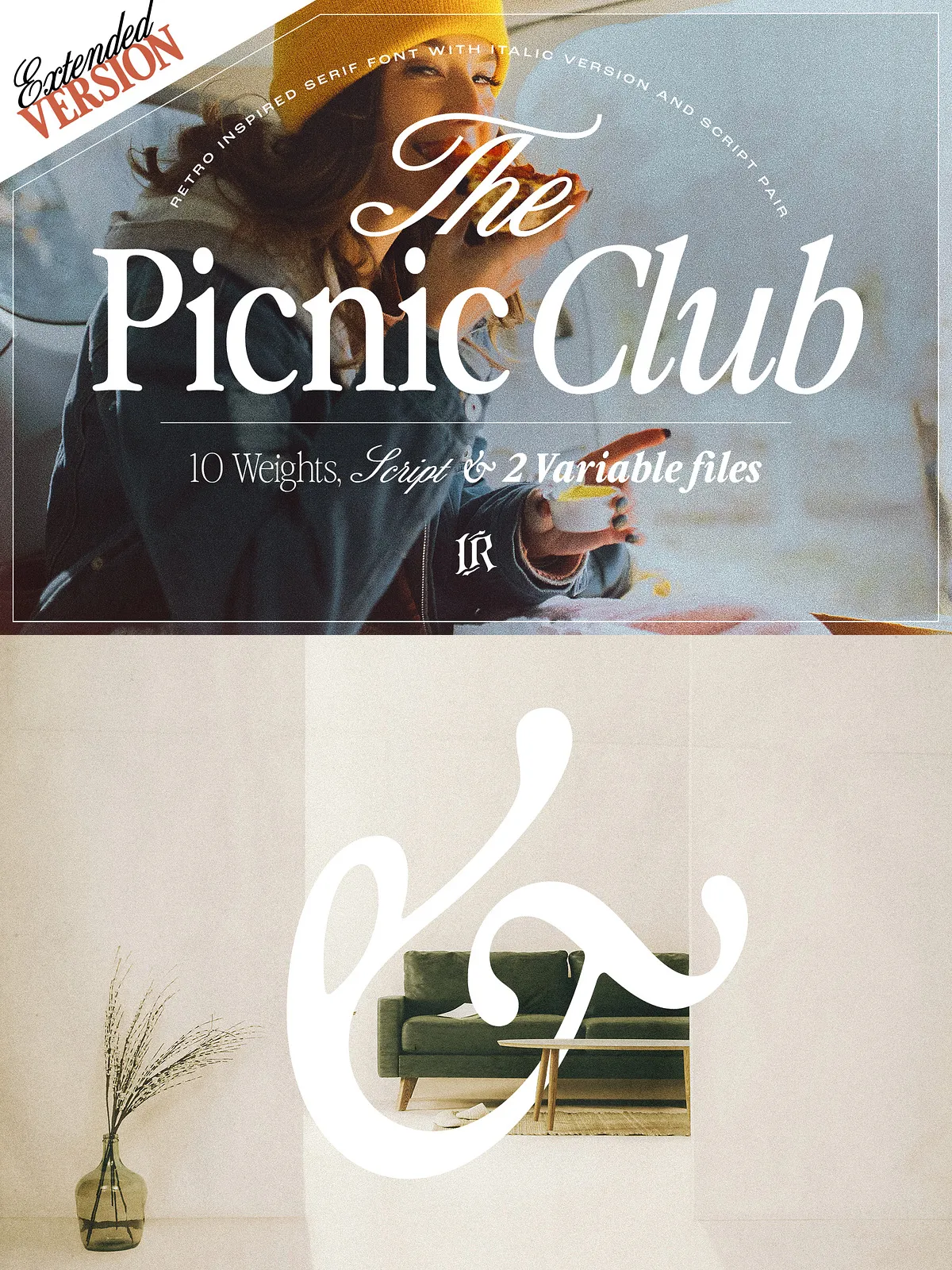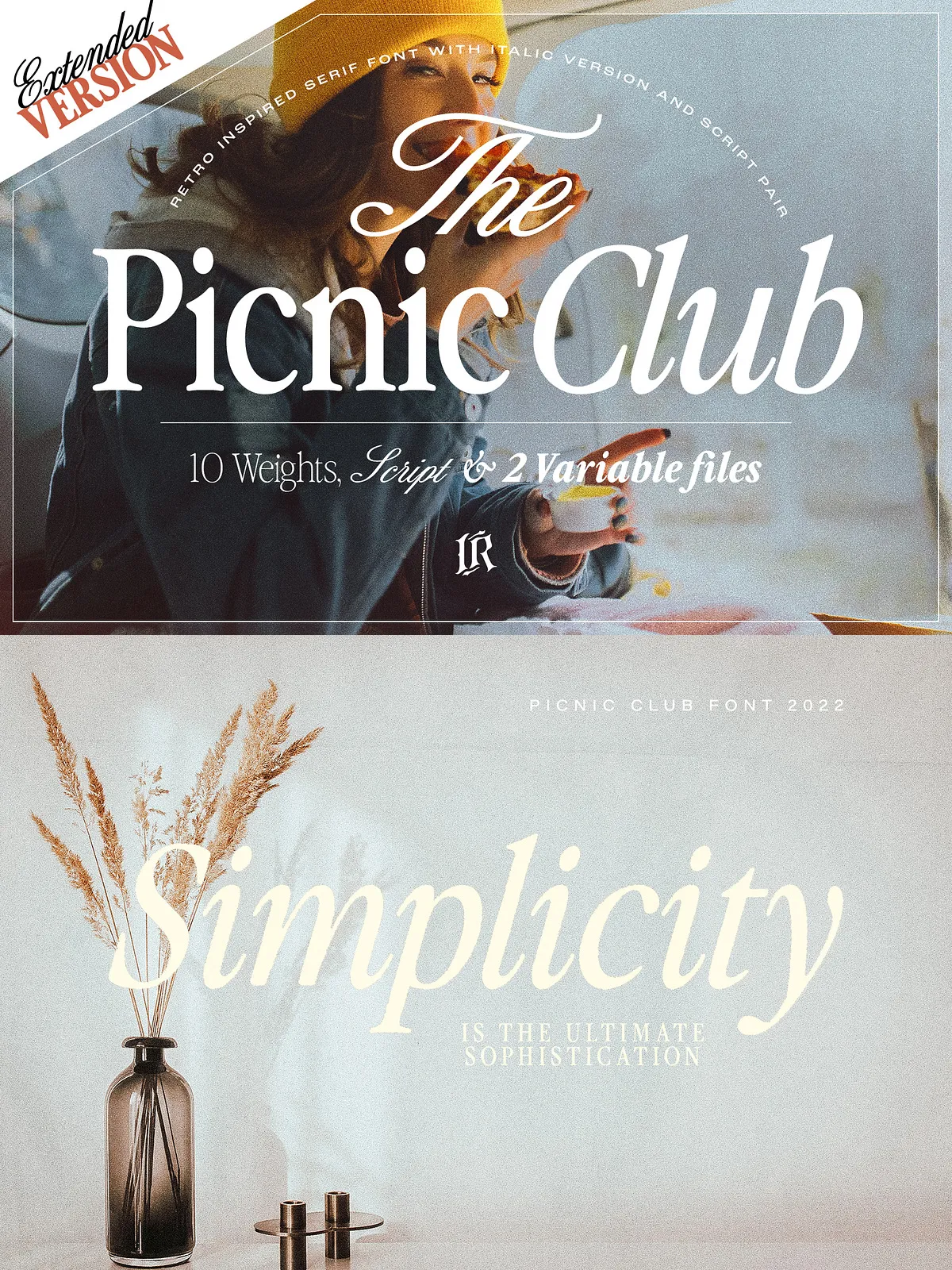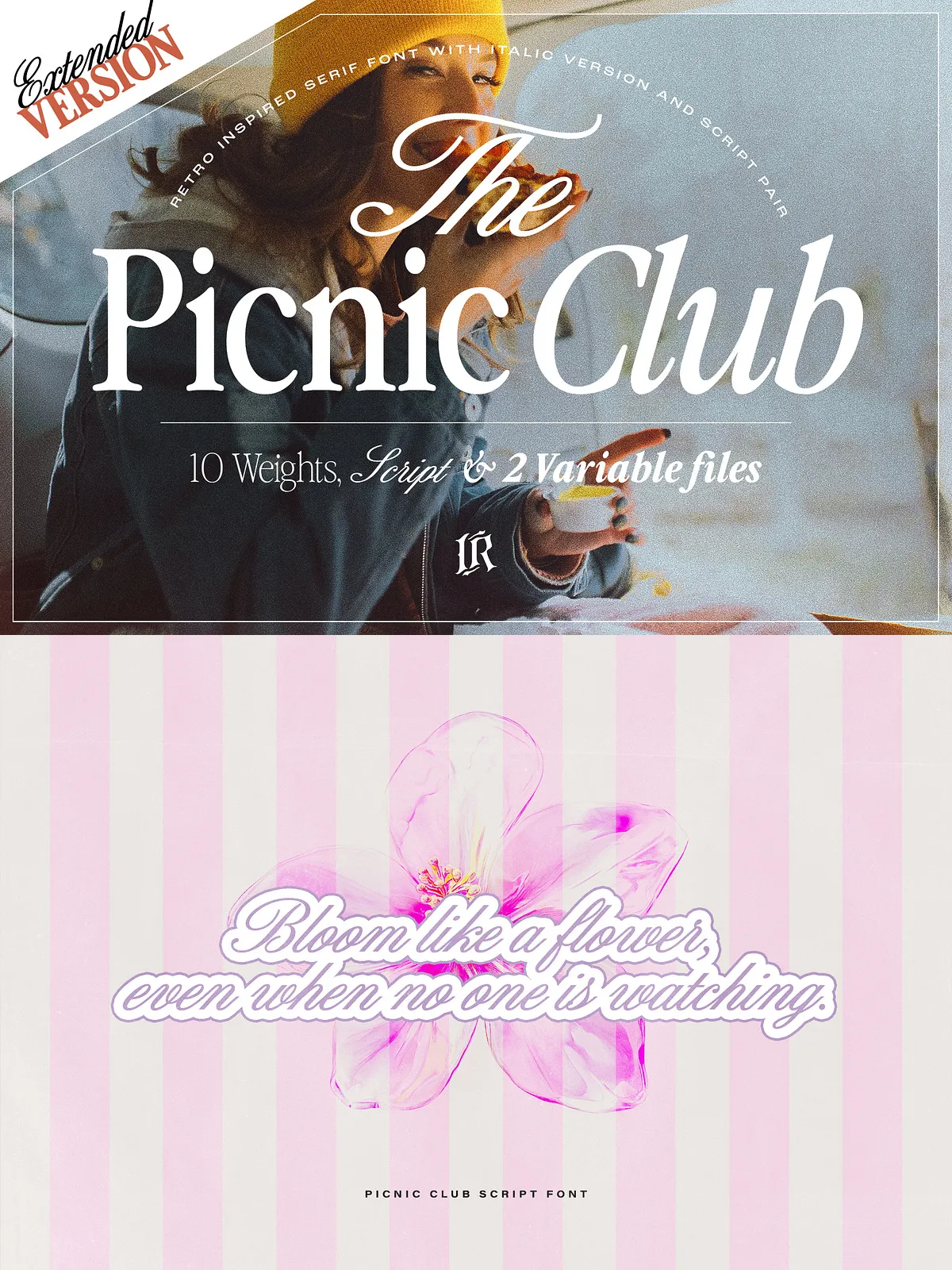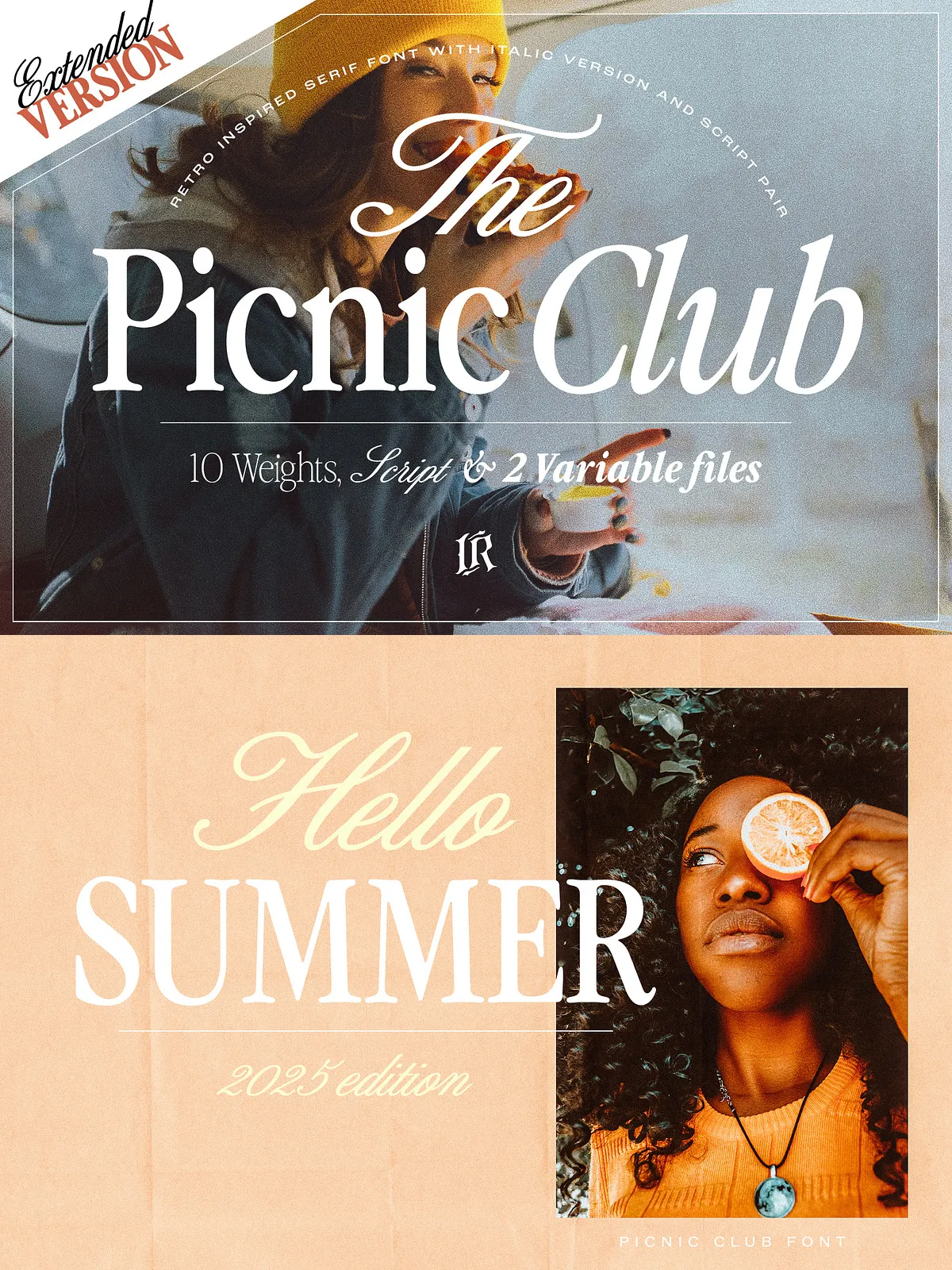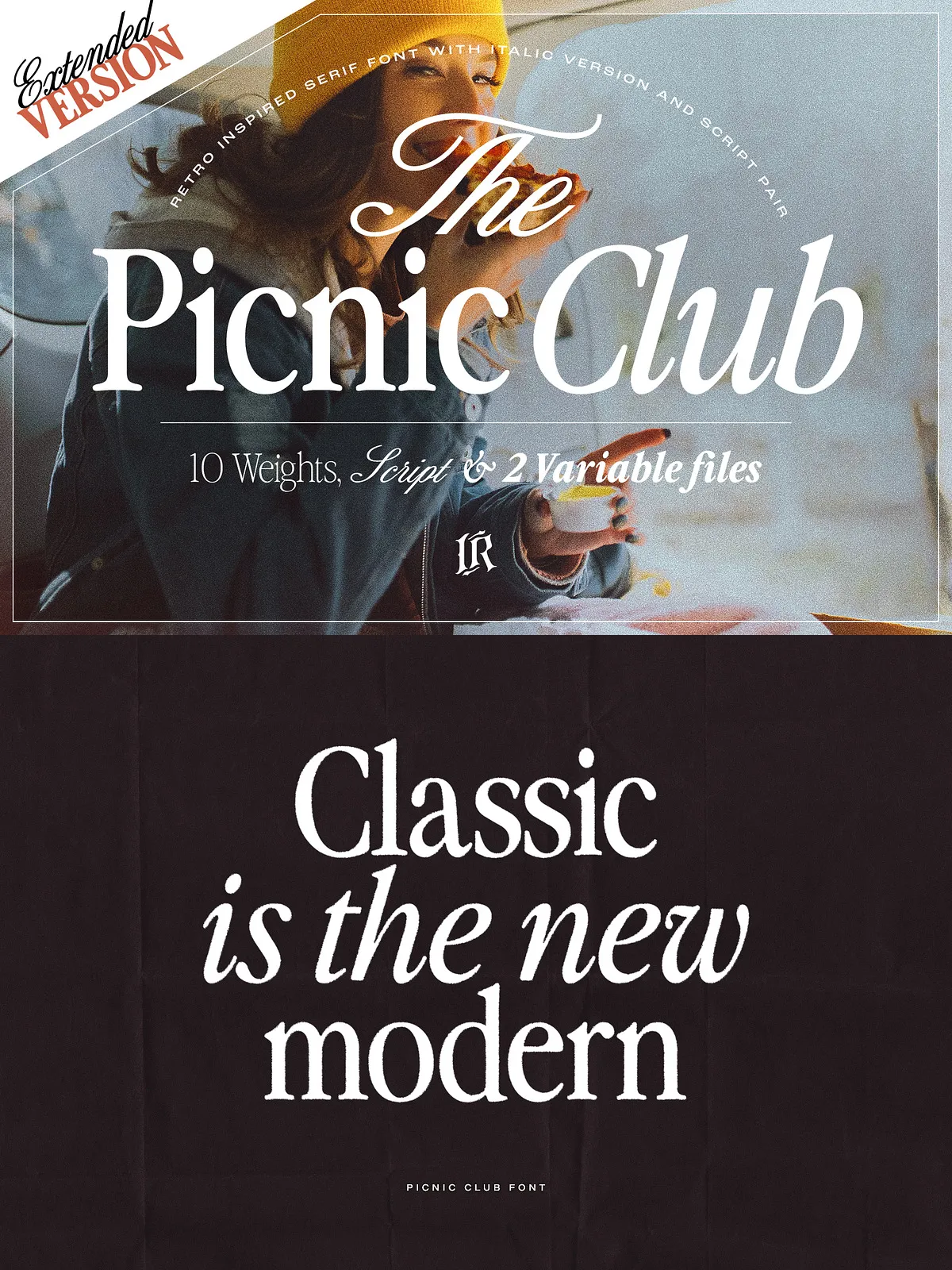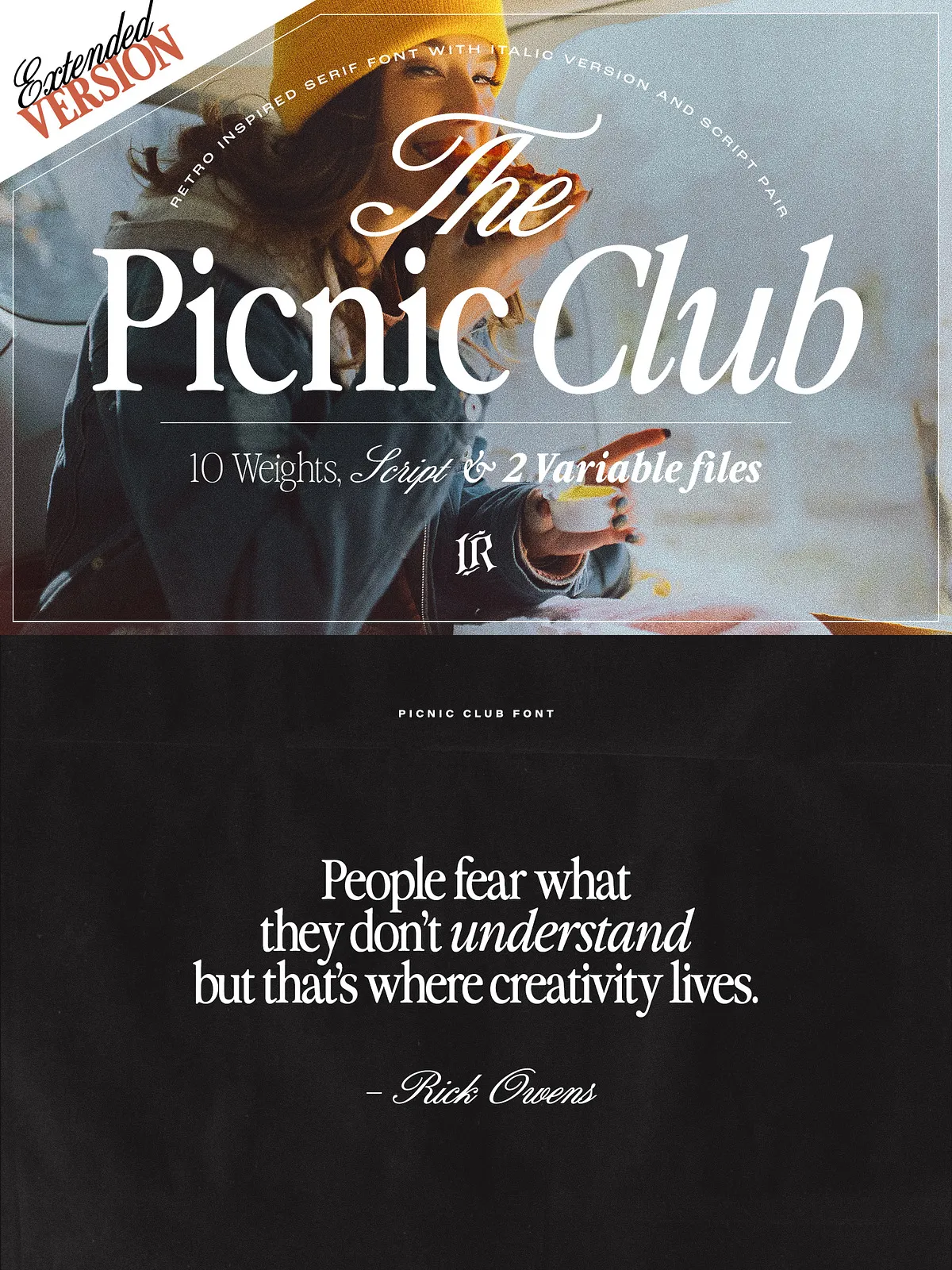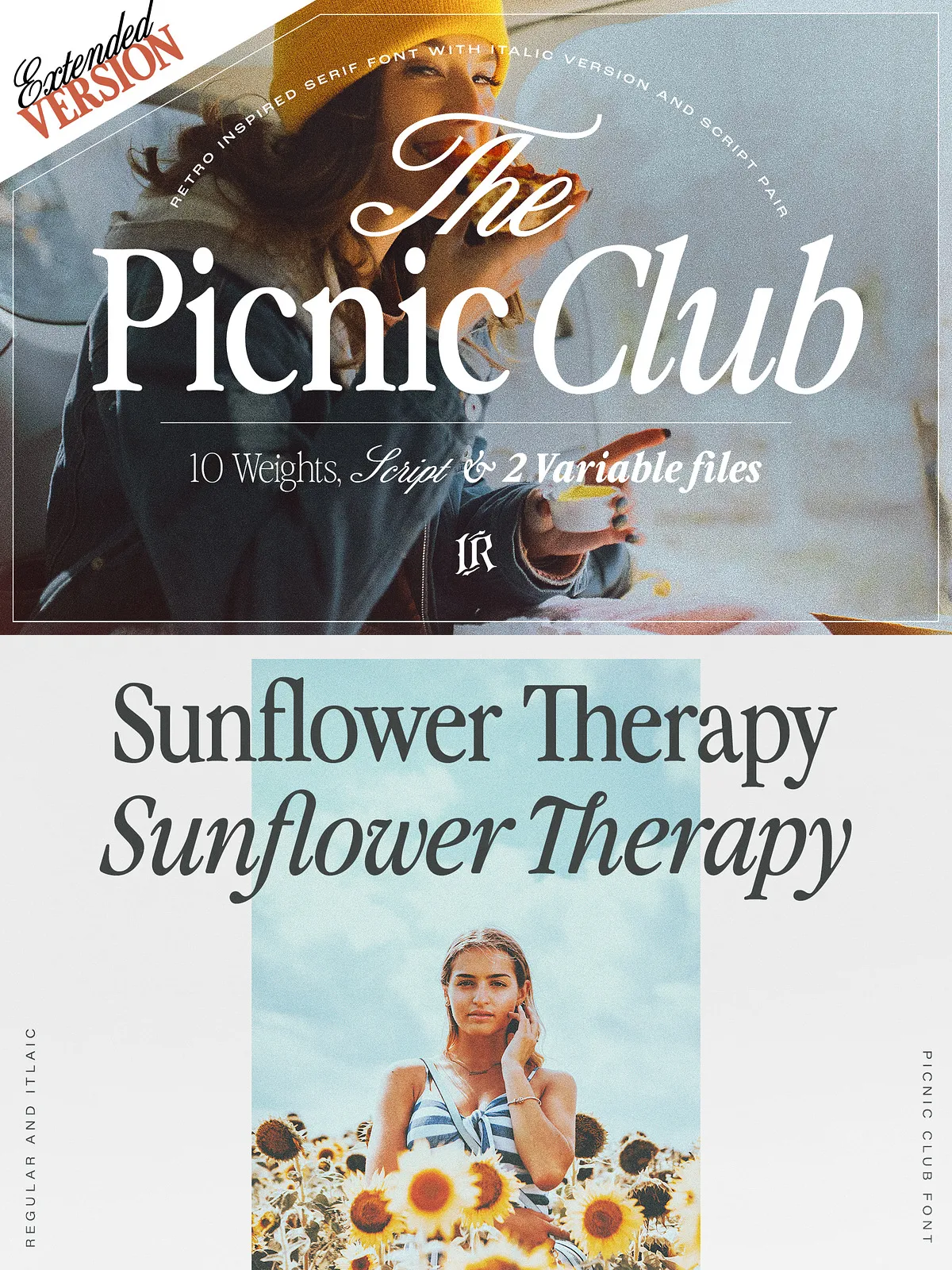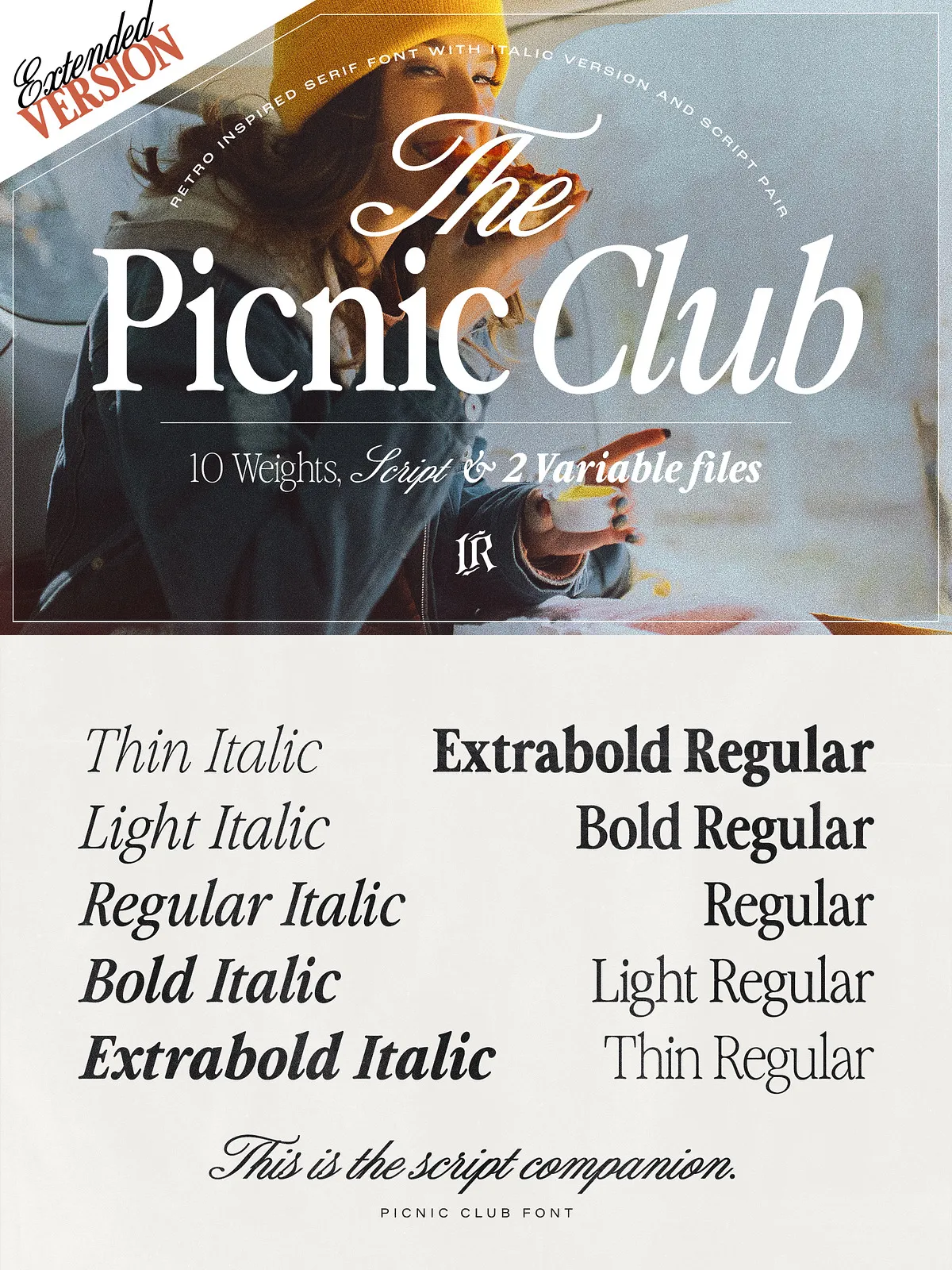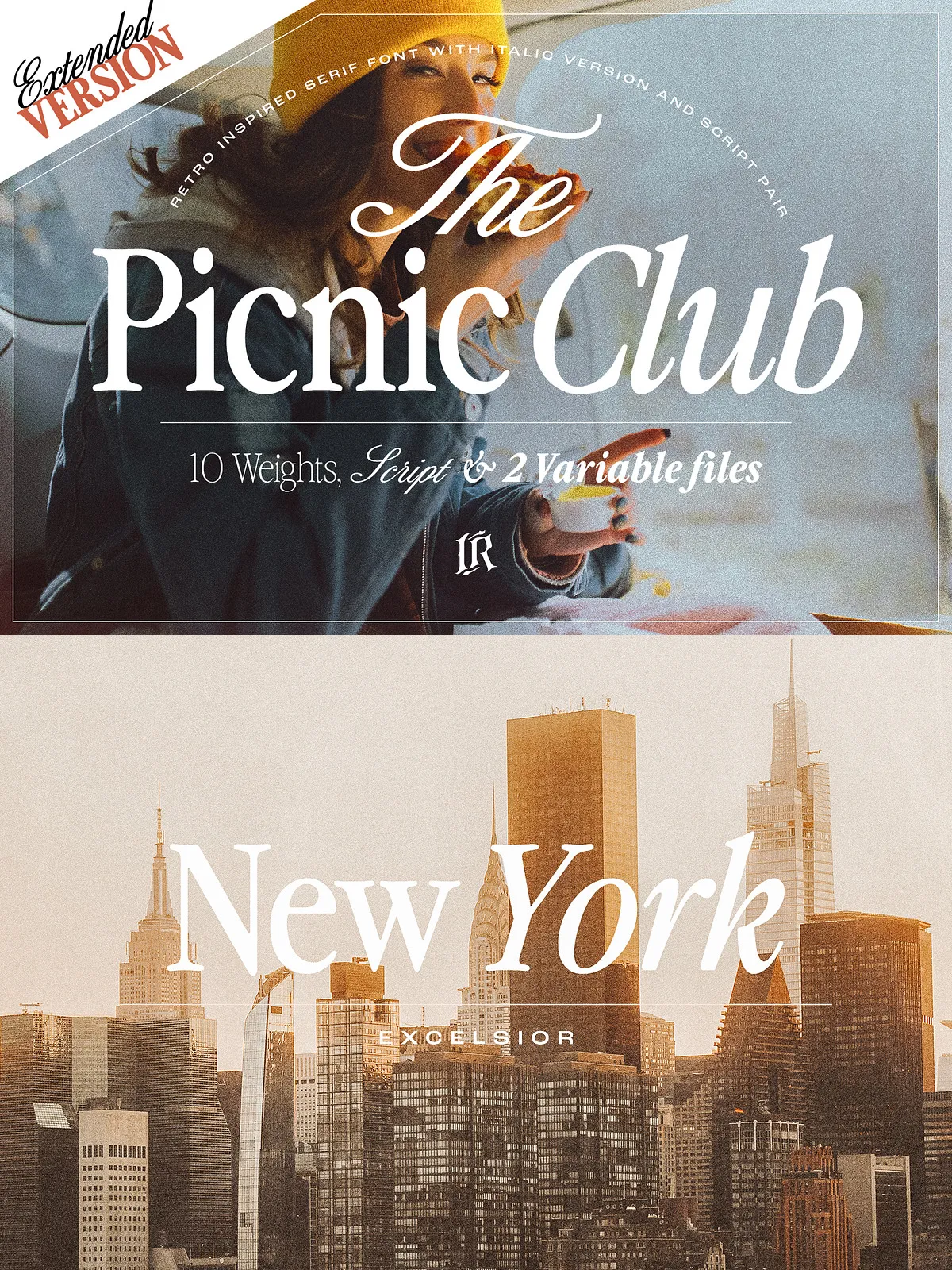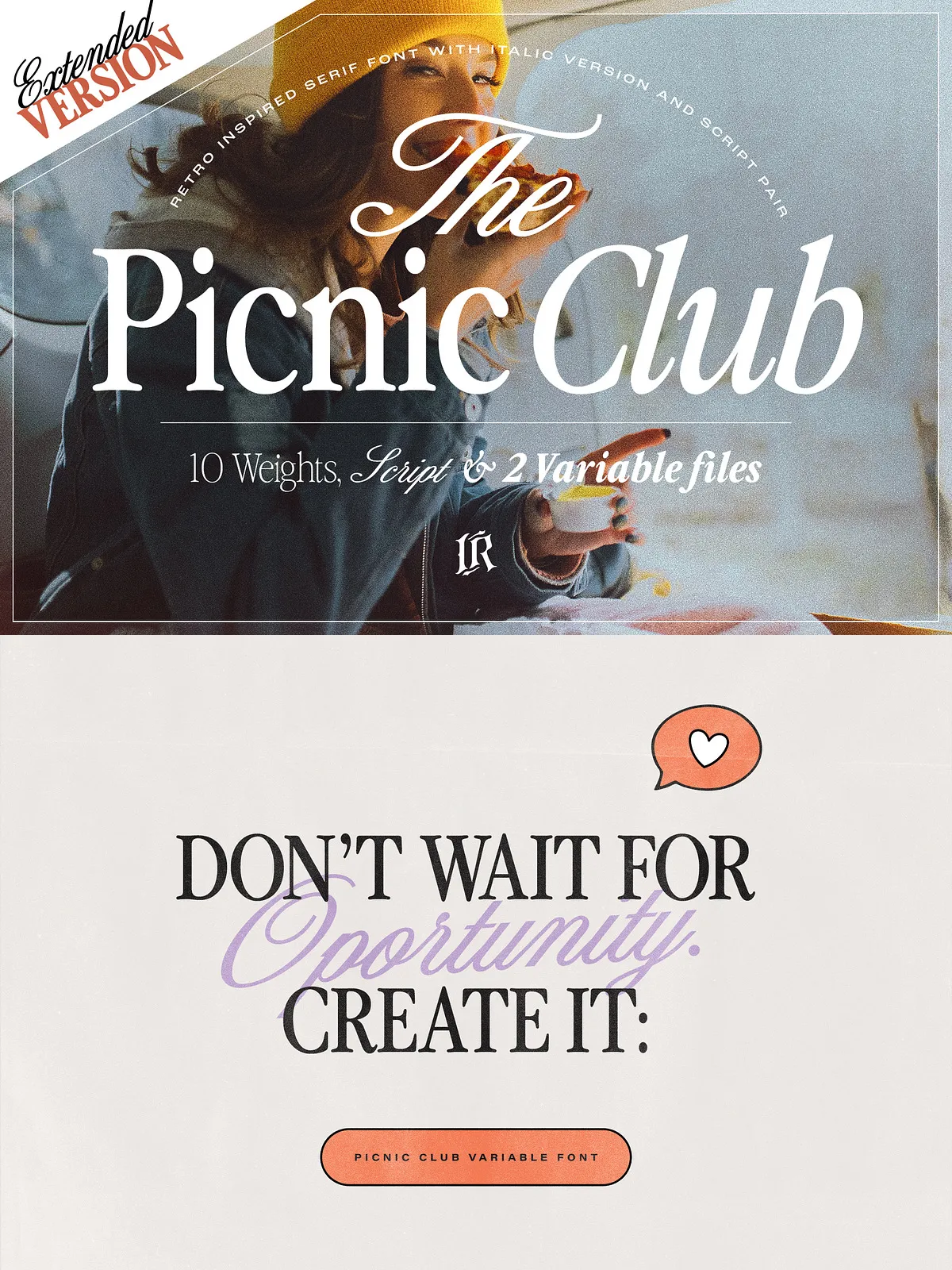
Step into a world of warm memories and bold design with The Picnic Club—a dynamic serif type family that bridges the groovy energy of the 1980s with the crisp precision of modern typography. This isn’t just a font. It’s a design movement. Born from nostalgia, reimagined for today, The Picnic Club delivers character, depth, and unmistakable charm — all while giving you the tools to create with intention, impact, and flair.
Evolved for Creativity: A Complete Type System
What began as a bold display serif has transformed into a full-scale type system, built for the real demands of contemporary design. With 10 carefully calibrated weights—ranging from delicate Thin to powerful ExtraBold—The Picnic Club gives you unmatched control over visual hierarchy. Whether you’re crafting a minimalist title or building a layered editorial spread, every weight responds with purpose and presence.
Now, the family has expanded with a brand-new Script font, hand-crafted to dance alongside the serif styles. Its lively, handwritten flow adds playfulness, fluidity, and personal touch—perfect for signatures, invitations, and branding that wants to feel human, not machine-made. And for those who demand flexibility, separate Regular and Italic styles—plus dedicated variable files—ensure smooth scaling and responsive performance across all devices and projects.
Design Power at Your Fingertips
From the first stroke to the final pixel, The Picnic Club gives you the freedom to create with confidence. Its refined serifs, gentle contrast, and slightly exaggerated proportions evoke a bygone era without feeling dated. It’s retro, yes—but never cliché. It’s nostalgic, but unmistakably modern.
- Dynamic Weight Range – Go from airy Thin to intense ExtraBold, creating tension, rhythm, and visual storytelling.
- Playful Script Companion – Add personality and motion with a handwritten font that complements without competing.
- Rich Language Support – Includes extended Latin, Cyrillic, and Greek, with ligatures and stylistic alternates for typographic polish.
- Designed for Real-World Use – Perfectly optimized for print, web, mobile, and branding applications.
Where The Picnic Club Truly Shines
Use The Picnic Club to bring your ideas to life in ways that resonate emotionally and visually. This is type that doesn’t just convey words—it tells stories.
- Brand Identities – Build a memorable brand voice with a font that communicates warmth, authenticity, and creative confidence.
- Editorial & Magazine Design – Animate your layouts with headings and pull quotes that demand attention and invite reading.
- Packaging & Advertising – Make your products stand out on shelves with labels and ads that feel both classic and current.
- Headlines & Titles – Command the page with display text that balances retro spirit with modern elegance.
- Retro and Contemporary Aesthetics – Whether you’re designing a 1980s-inspired campaign or a modern vintage look, The Picnic Club speaks both languages fluently.
Master Your Design with The Picnic Club: 5 Action Steps
- Explore the Weight Spectrum – Test Thin for sophistication, Regular for balance, and ExtraBold for bold impact.
- Pair with a Contrast – Combine with clean sans-serifs like Helvetica Neue or Inter to let The Picnic Club shine without overwhelming.
- Use Variable Files Strategically – Apply weight or width changes dynamically in web or animation tools for smoother transitions.
Let Your Design Speak from the Heart
The Picnic Club isn’t just about style. It’s about feeling. It’s about nostalgia, yes—but not the kind that looks old. It’s the kind that feels alive. It’s about creating work that matters, that connects, that lingers in the mind after the screen turns off.
Stop designing neutrally. Start designing with memory, motion, and meaning. The Picnic Club is your toolkit for work that doesn’t just look good—it lives, breathes, and tells a story. Whether you’re working on a nostalgic mood board, a fashion campaign, or a personal project, let your type carry the soul of a bygone era and the energy of today.